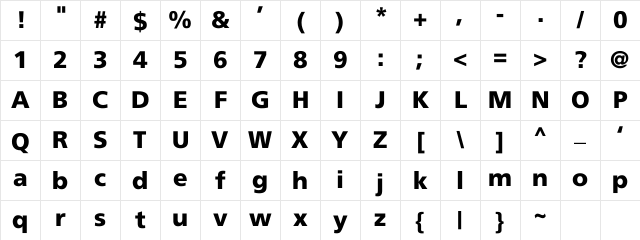
Complete FutigerDark Regular glyph index. Displaying only characters natively supported by FutigerDark Regular font.
FutigerDark is a composed and adaptable typeface that performs quietly and consistently across a wide range of design contexts.
Pro Tip: Use FutigerDark in both headline and body roles to test its range before committing to a single application.